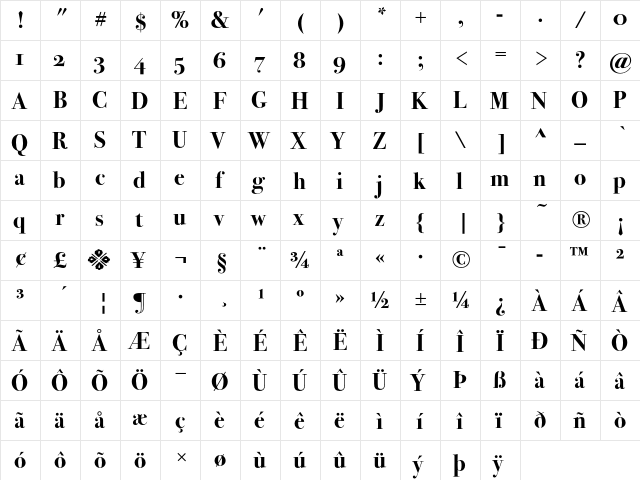
Bodoni Seventytwo ITC Bold OS
Design Context for Bodoni Seventytwo ITC Typeface
Bodoni Seventytwo ITC is a composed and adaptable typeface that performs quietly and consistently across a wide range of design contexts. Its bold stroke weight gives it real presence on the page.